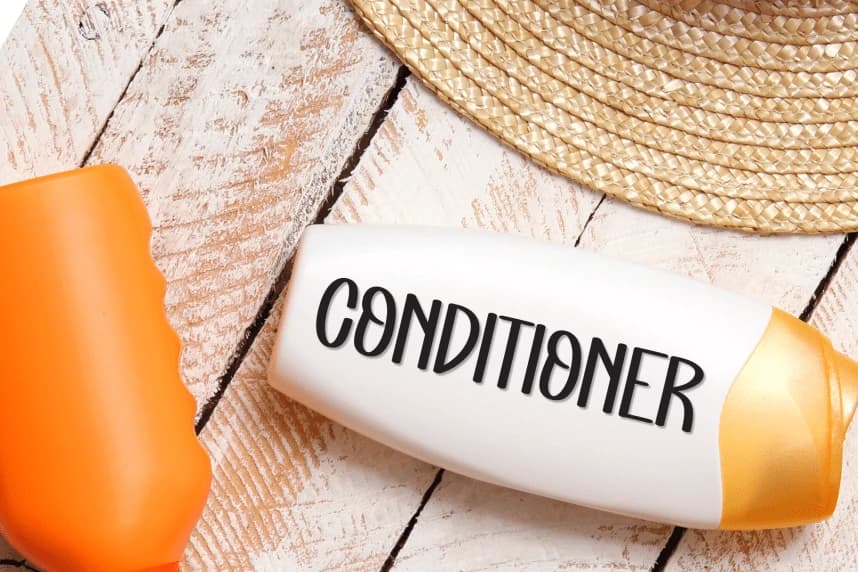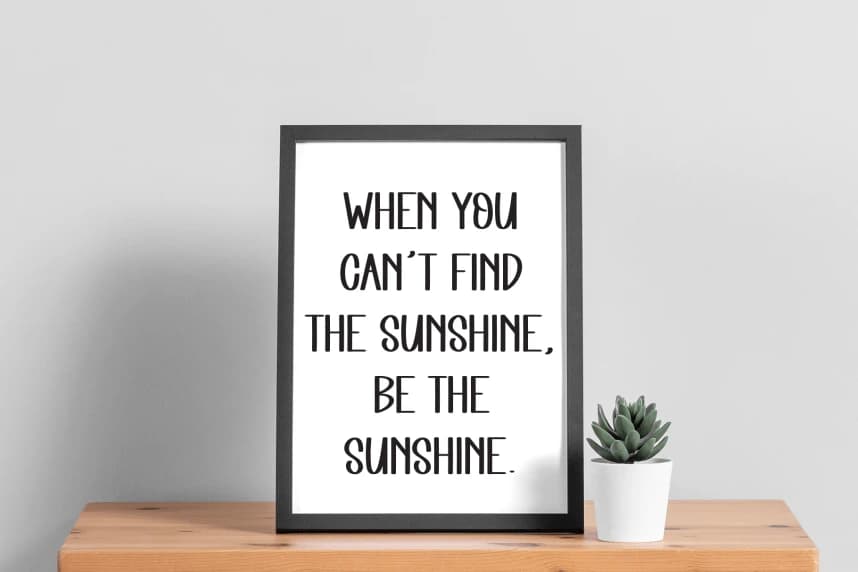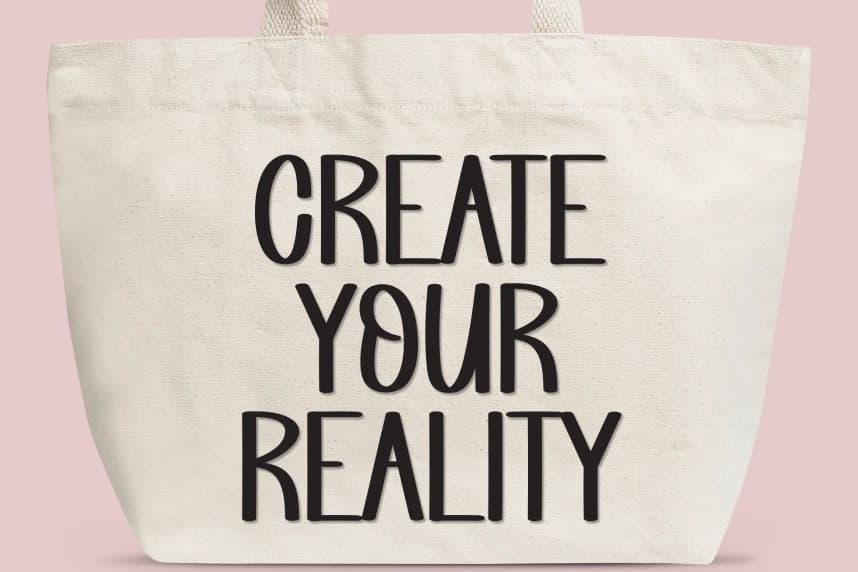
Magic Monkey – Creative Style Font
Magic Monkey – Creative Style Font is a sweet and friendly handwritten display font. Cute and fun, this font is ideal for writing wedding invitations, cards, or any other design that might need a playful touch!